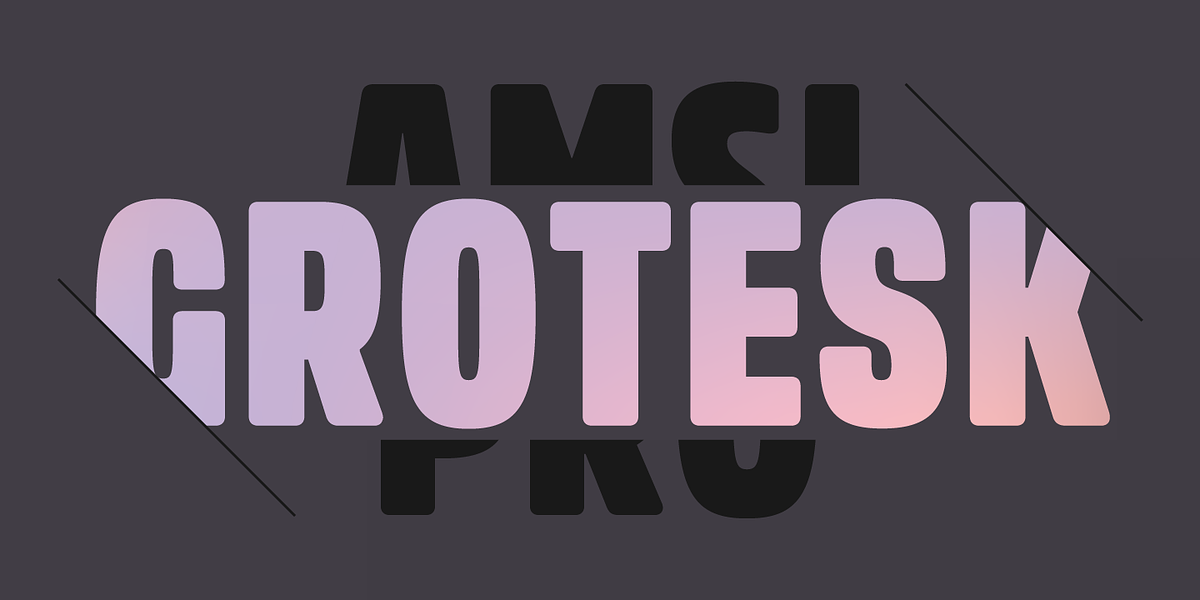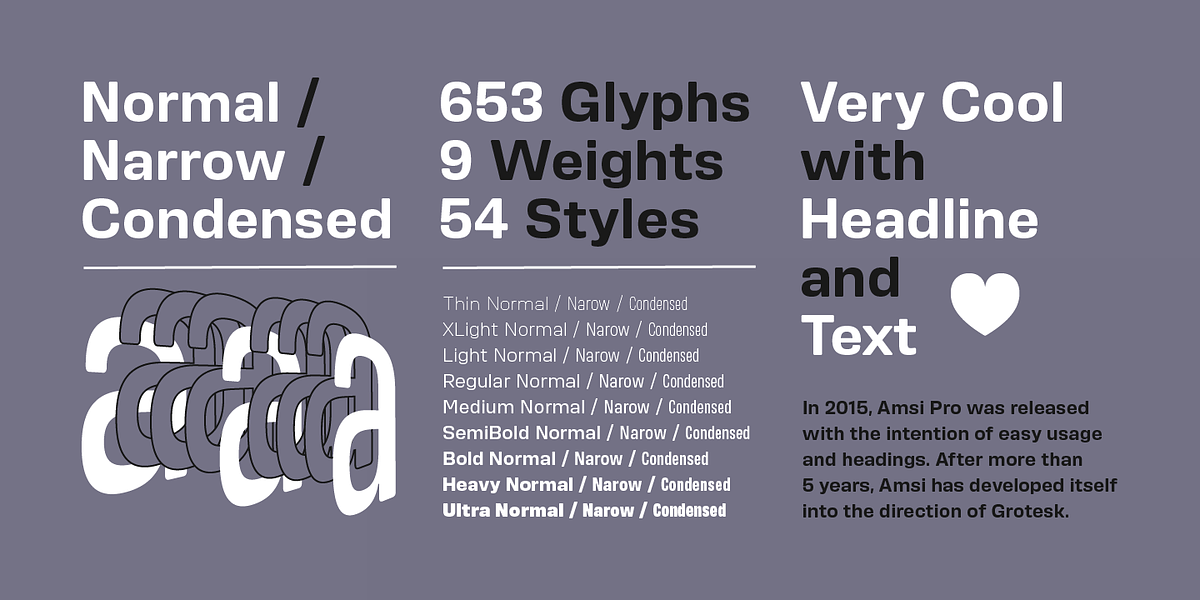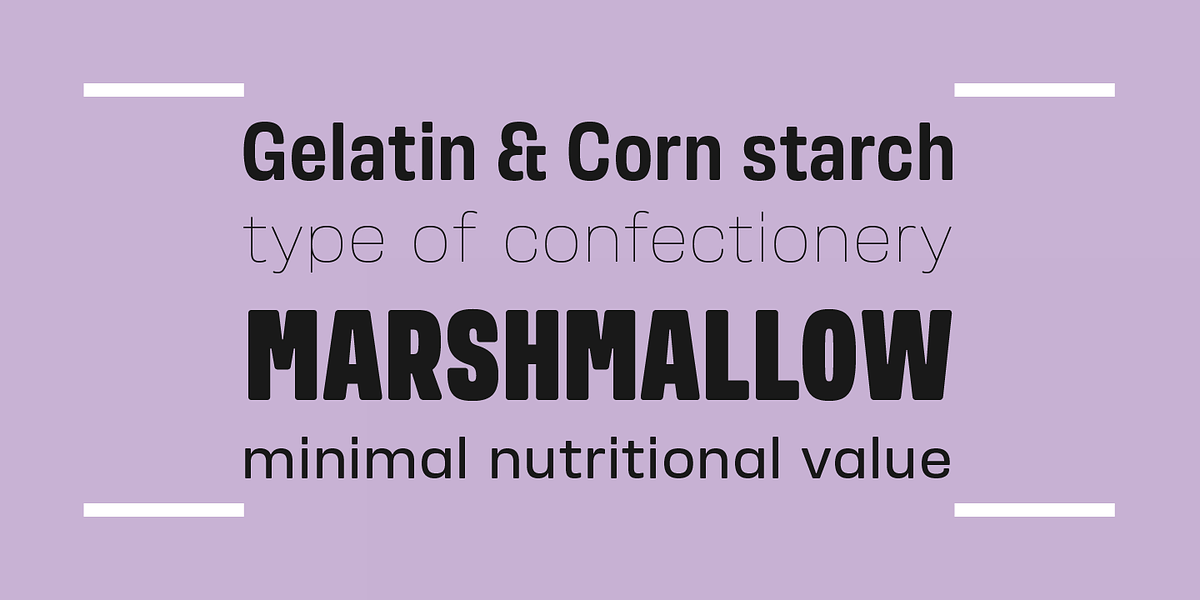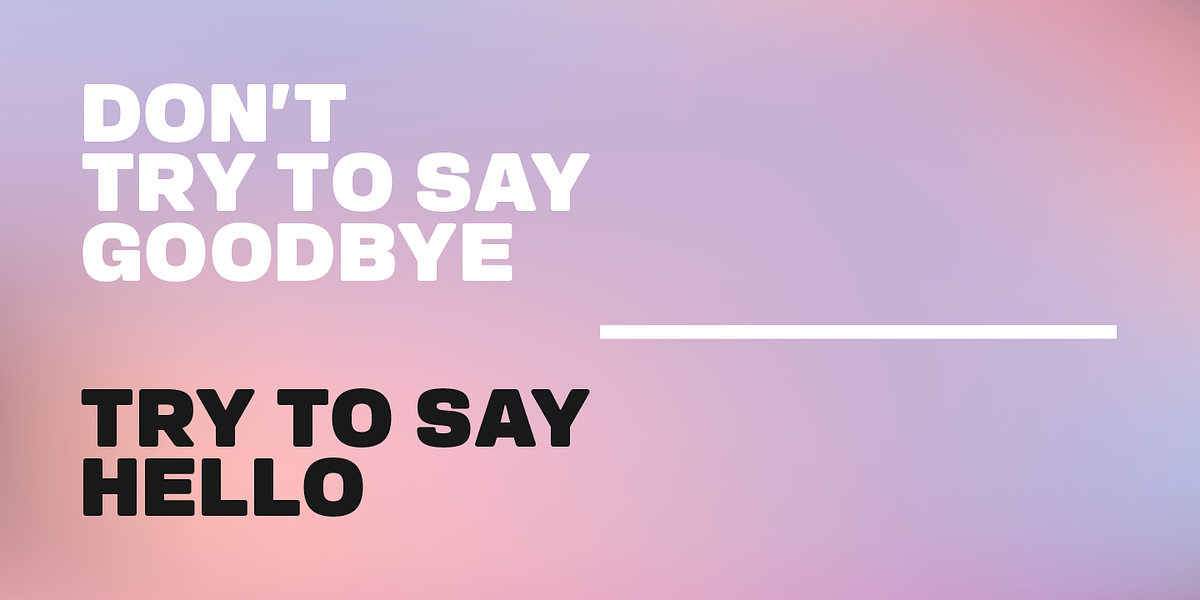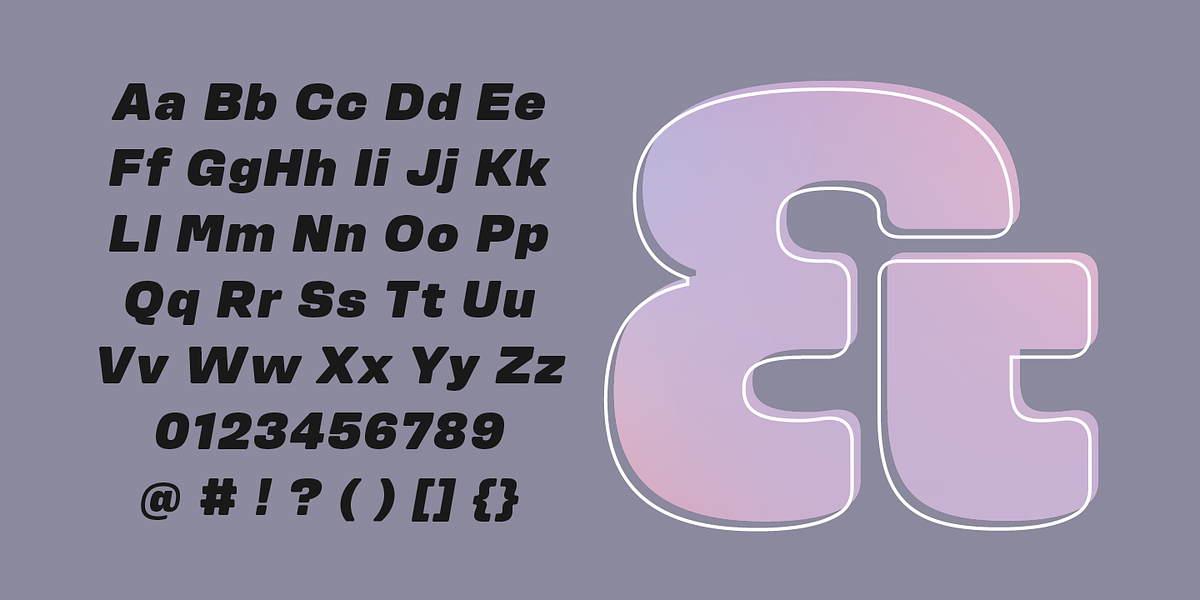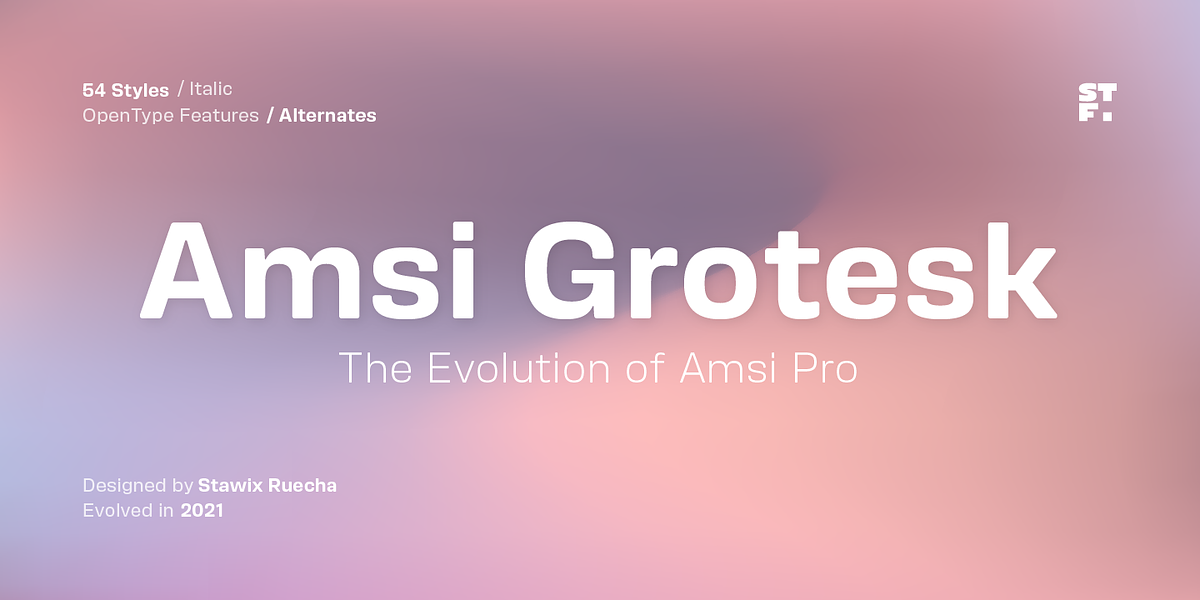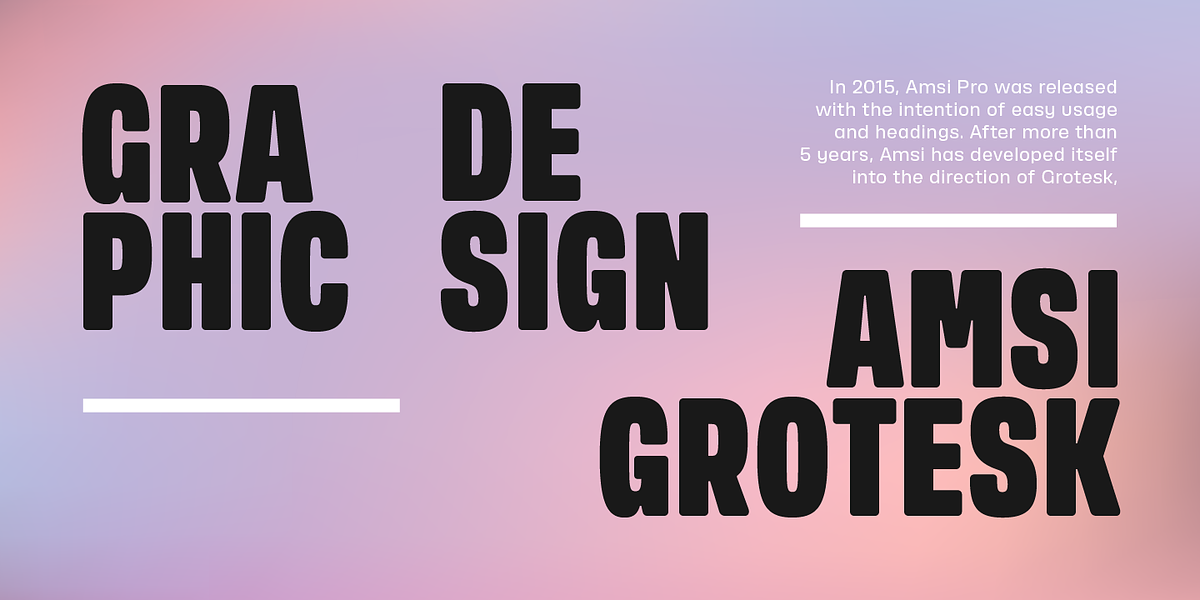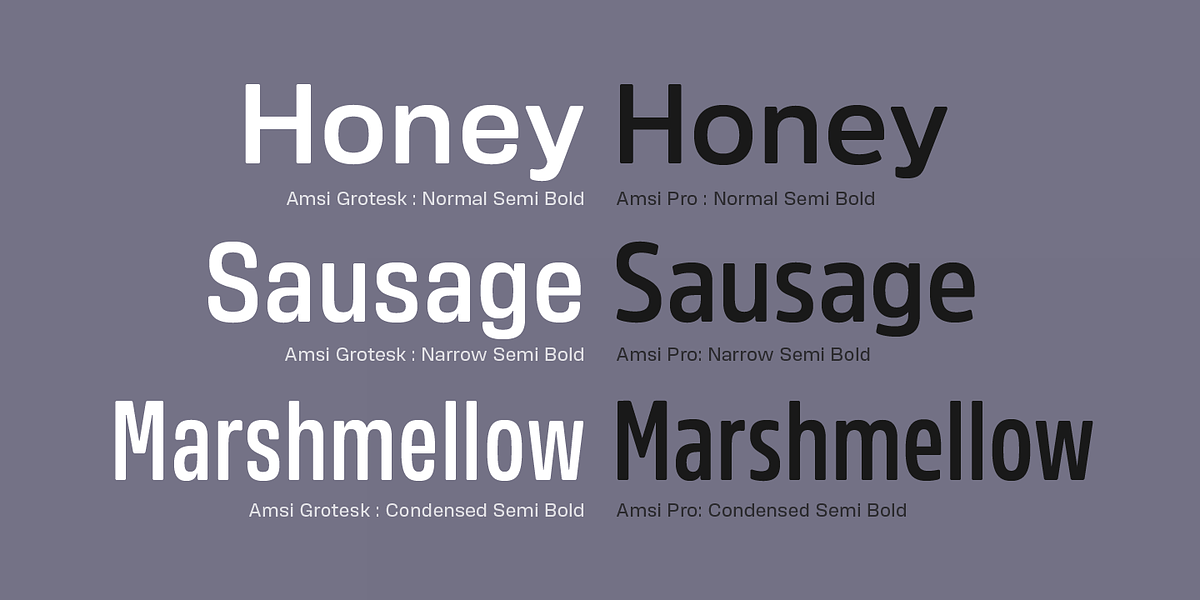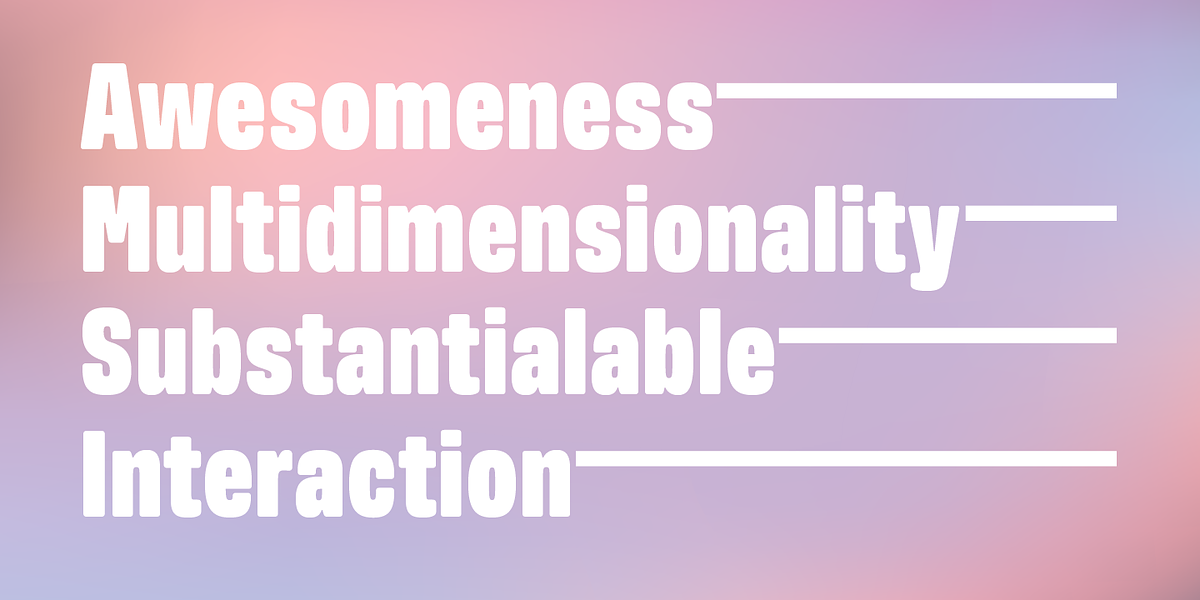
Amsi Grotesk
Amsi Grotesk is a sans-serif typeface characterized by its grotesque style and humanist touches. Its semi-rounded forms lend it a friendly and approachable feel. The font is available in three widths (condensed, normal, and narrow), providing flexibility for various design applications. It's well-suited for both headlines and body text.